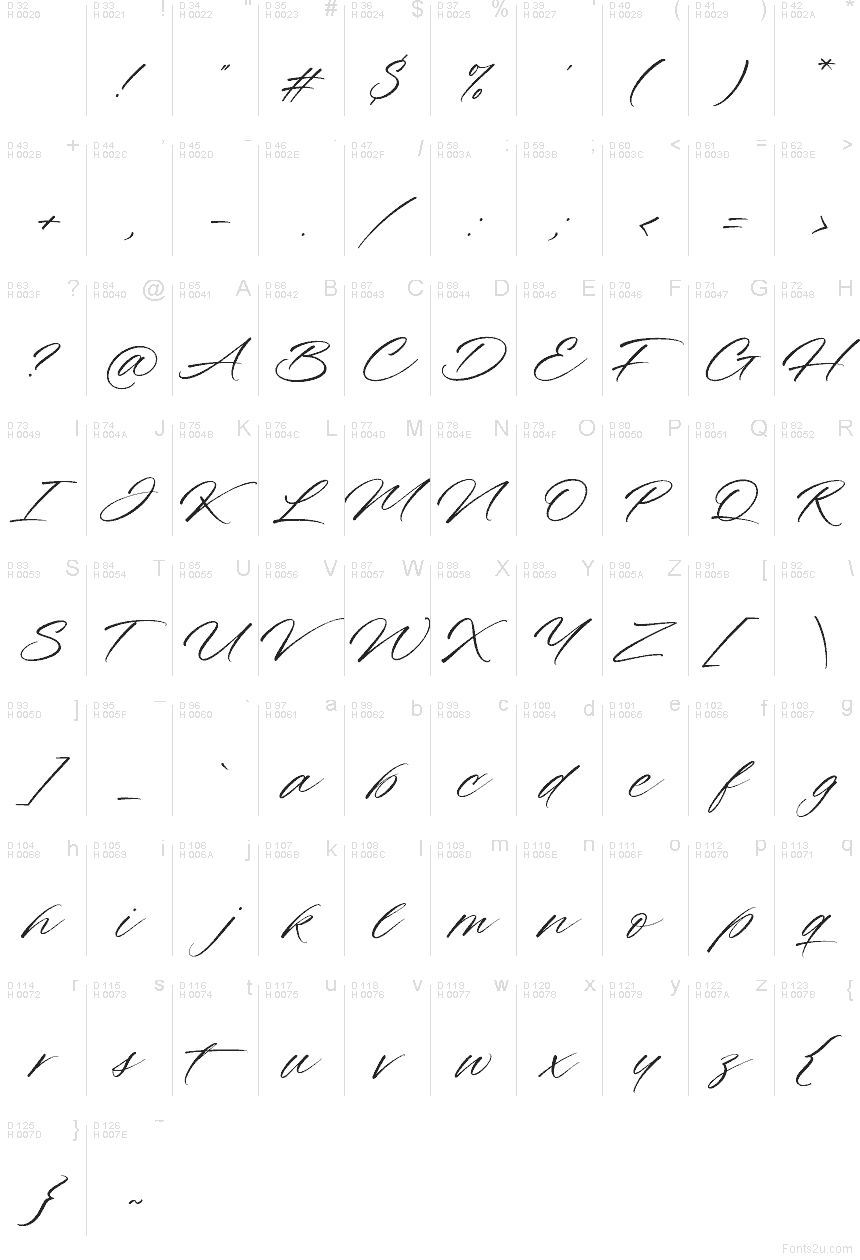
AmericanDreams-Regular
American Dreams font by Lunas Type is a free calligraphy typeface with a breezy, handwritten elegance that feels like ink gliding across fine stationery. Its long, sweeping connections and gently tilted letters create a romantic, slightly nostalgic rhythm that stays readable, even at larger sizes. The strokes are thin and hairline-smooth, giving every word a light, airy presence rather than a heavy script flourish.
Using American Dreams, this free font shines on wedding invitations, save-the-dates, boutique logos, packaging for cosmetics, album covers, and quote graphics. The refined flow brings a personal, intimate tone while still looking polished and intentional, not messy. For a balanced layout, pair it with a clean sans serif for body text and let American Dreams take the spotlight in headlines or names at larger sizes.